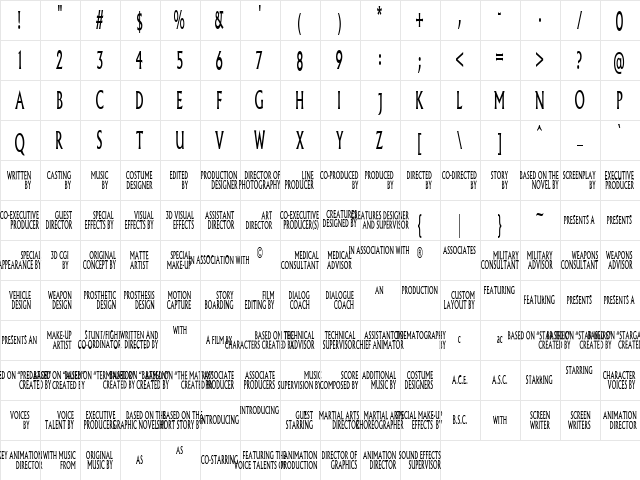
Pliskin Snake-Eyes
Design Context for Pliskin Typeface
Pliskin offers clean, dependable letterforms without strong stylistic allegiance, making it a practical choice for designers who need flexibility.